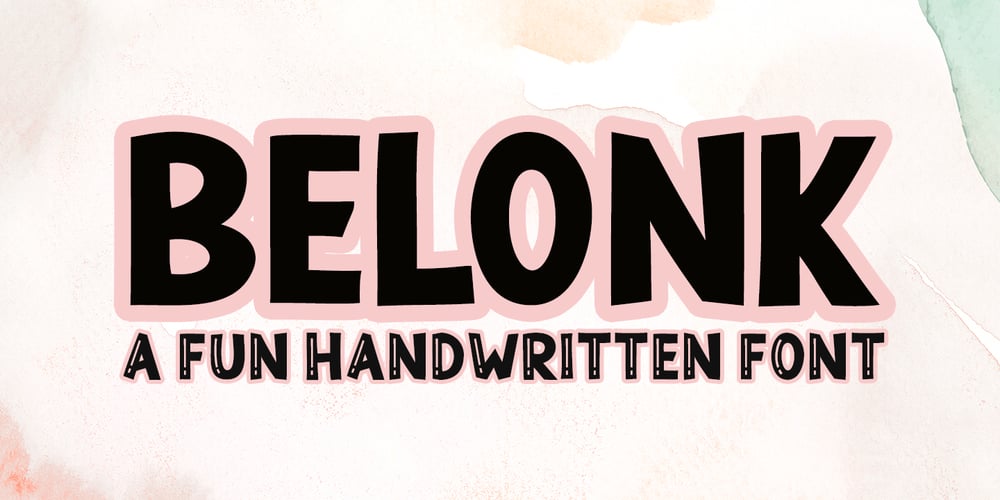
Belonk Font Family was designed by Nasrullah and published by Sulthan Studio. Belonk contains 1 styles and family package options. Belonk is a bold, simple and sweet handwritten font. Its authentic look and feel will add a great touch to your designs.Use this font for stickers, svg designs, shirts, mugs, social media, monograms, and more!Thank you!